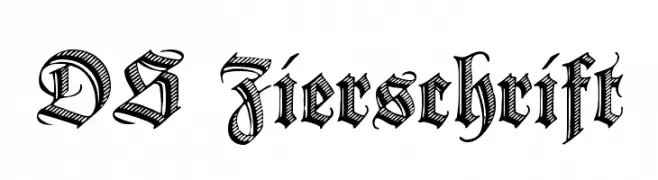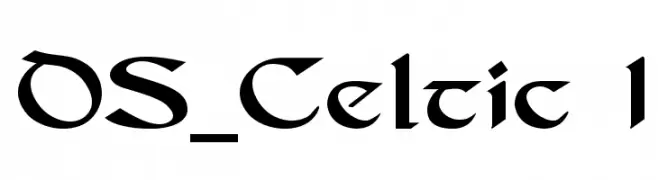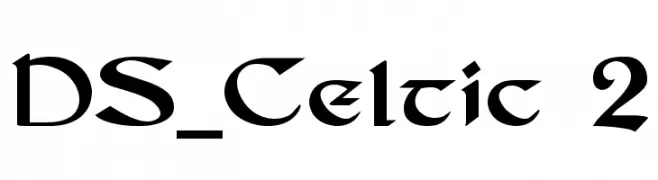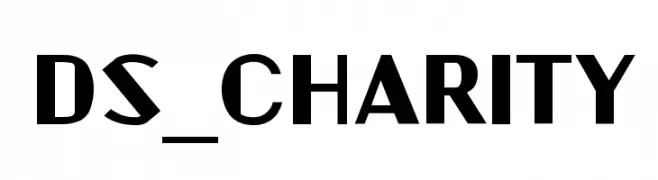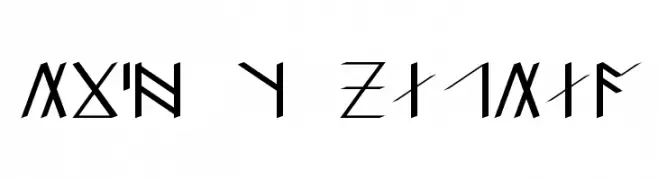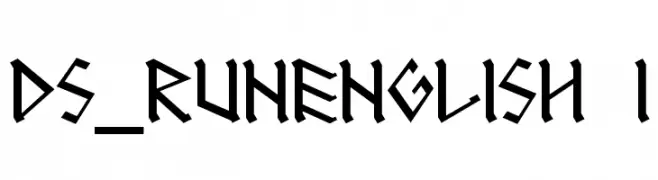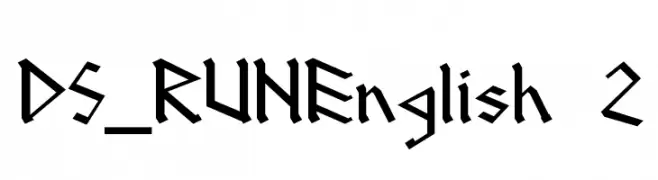
An ornate, blackletter-style font with intricate detailing and a medieval flair.
A bold, abstract font with geometric and artistic elements.
A Celtic-inspired decorative font with sharp, angular serifs and a medieval flair.
A bold, Celtic-inspired font with sharp, angular edges and a medieval aesthetic.
A bold, geometric font with a modern and assertive style.
A decorative, runic-inspired font with angular, geometric shapes.
A bold, angular font with a gothic and modern geometric flair.
A bold, angular font with a medieval or gothic style, featuring sharp, geometric characters.